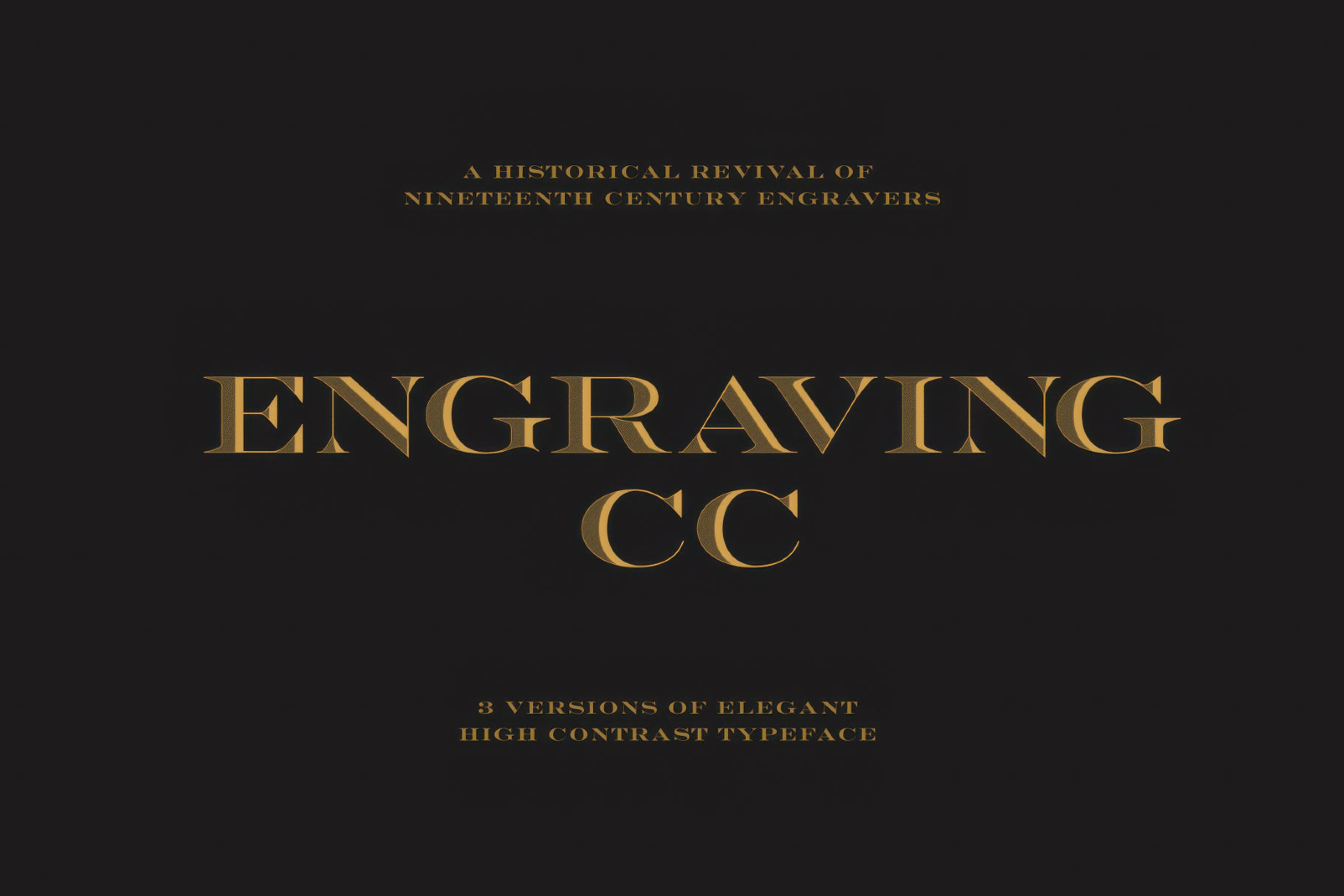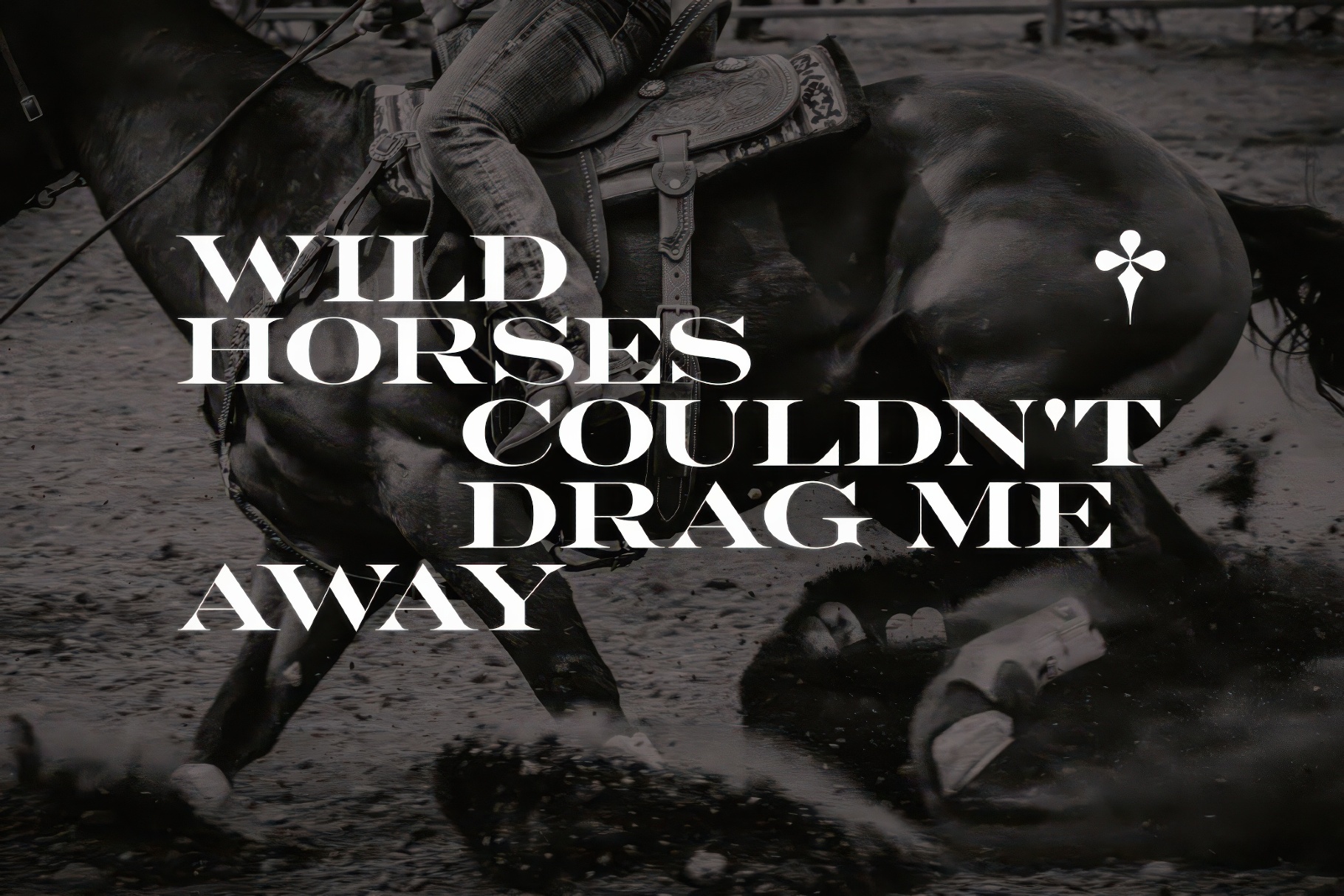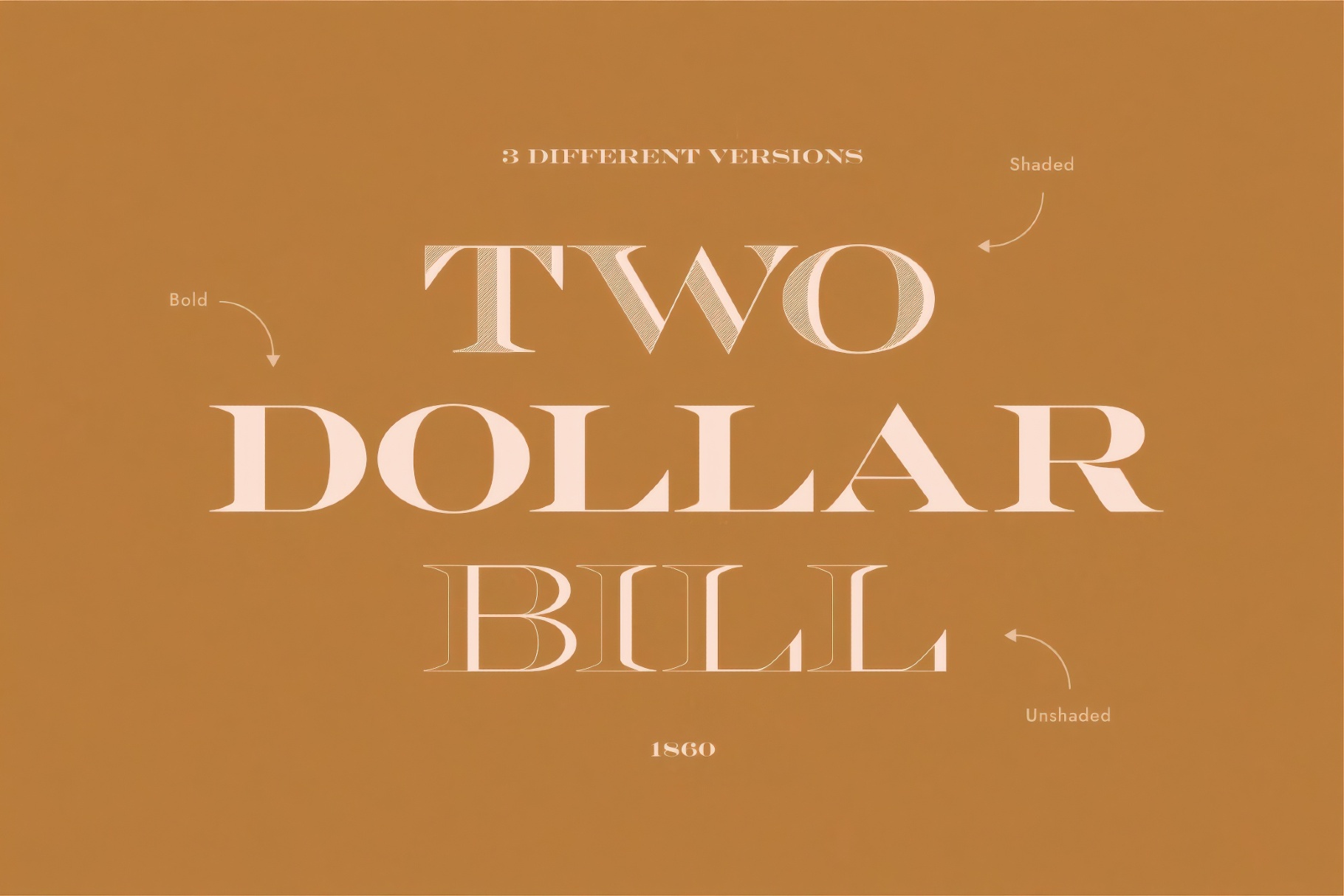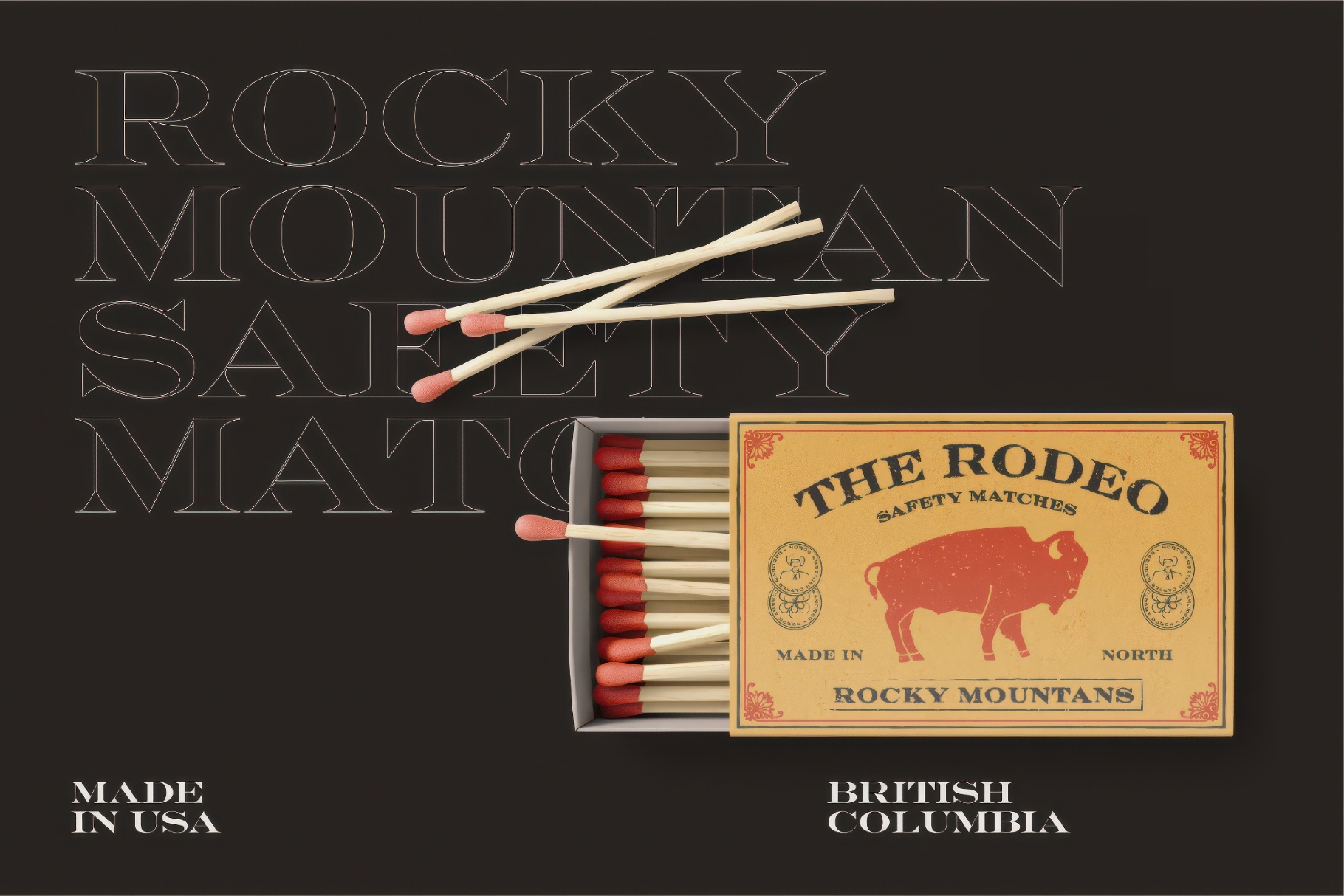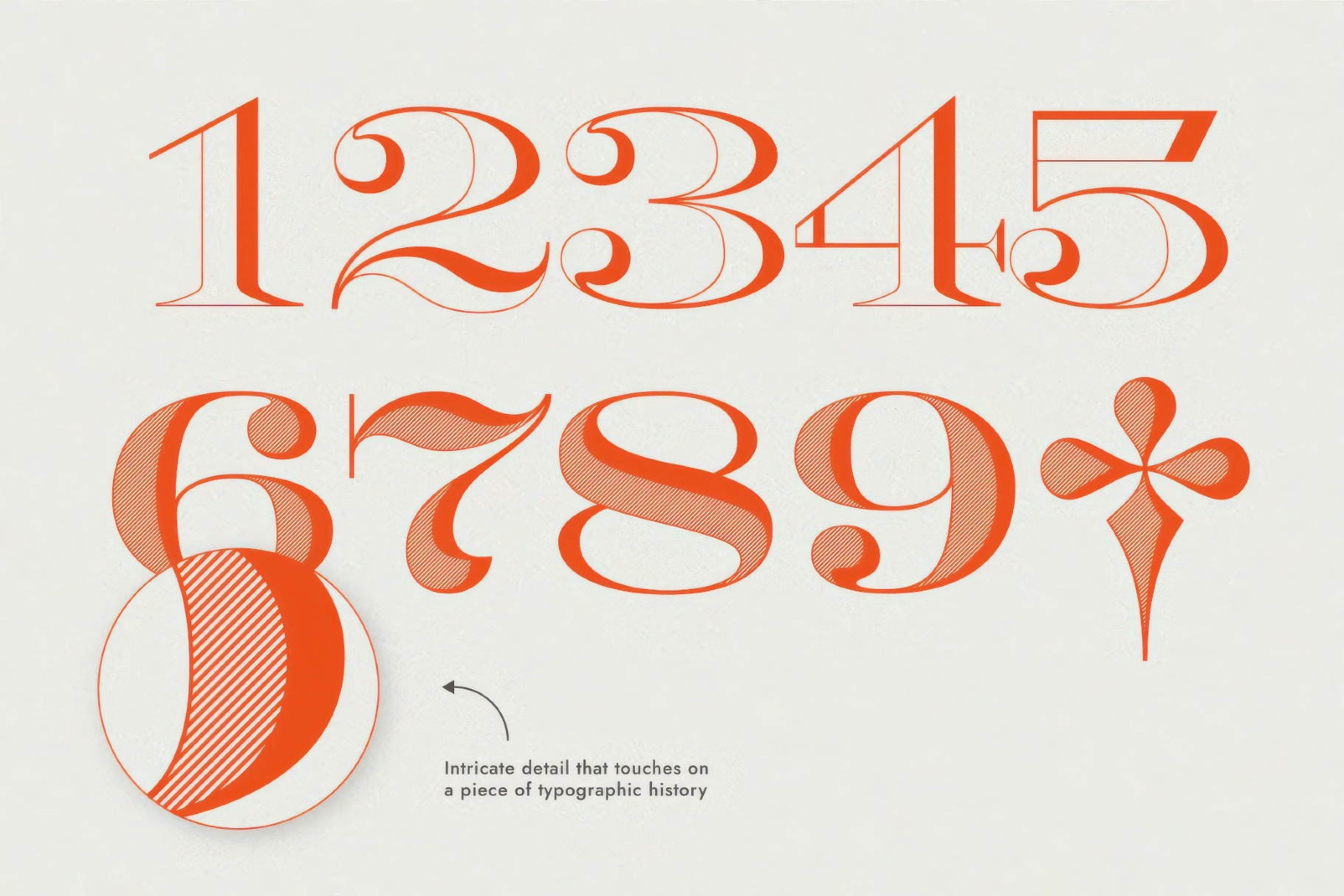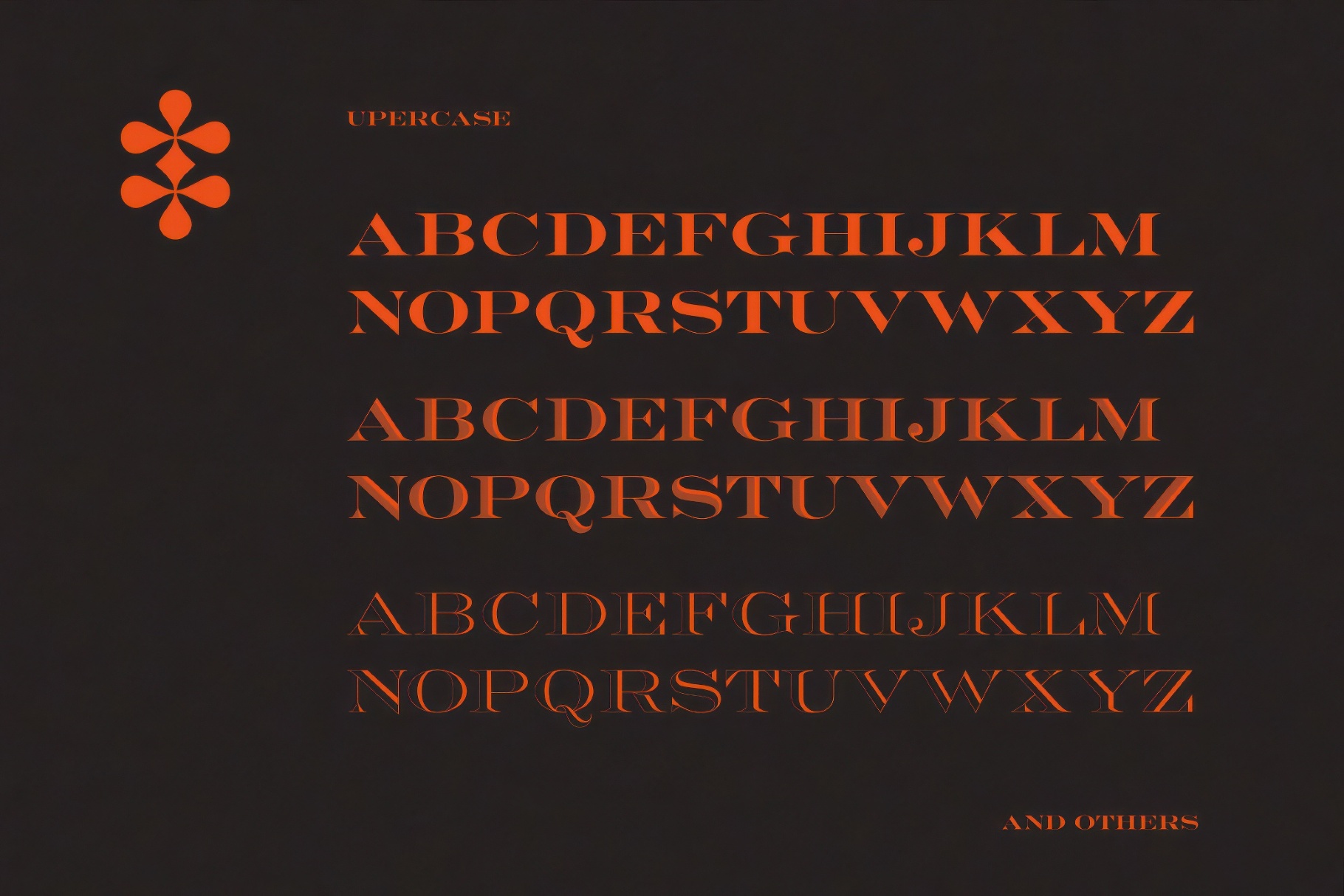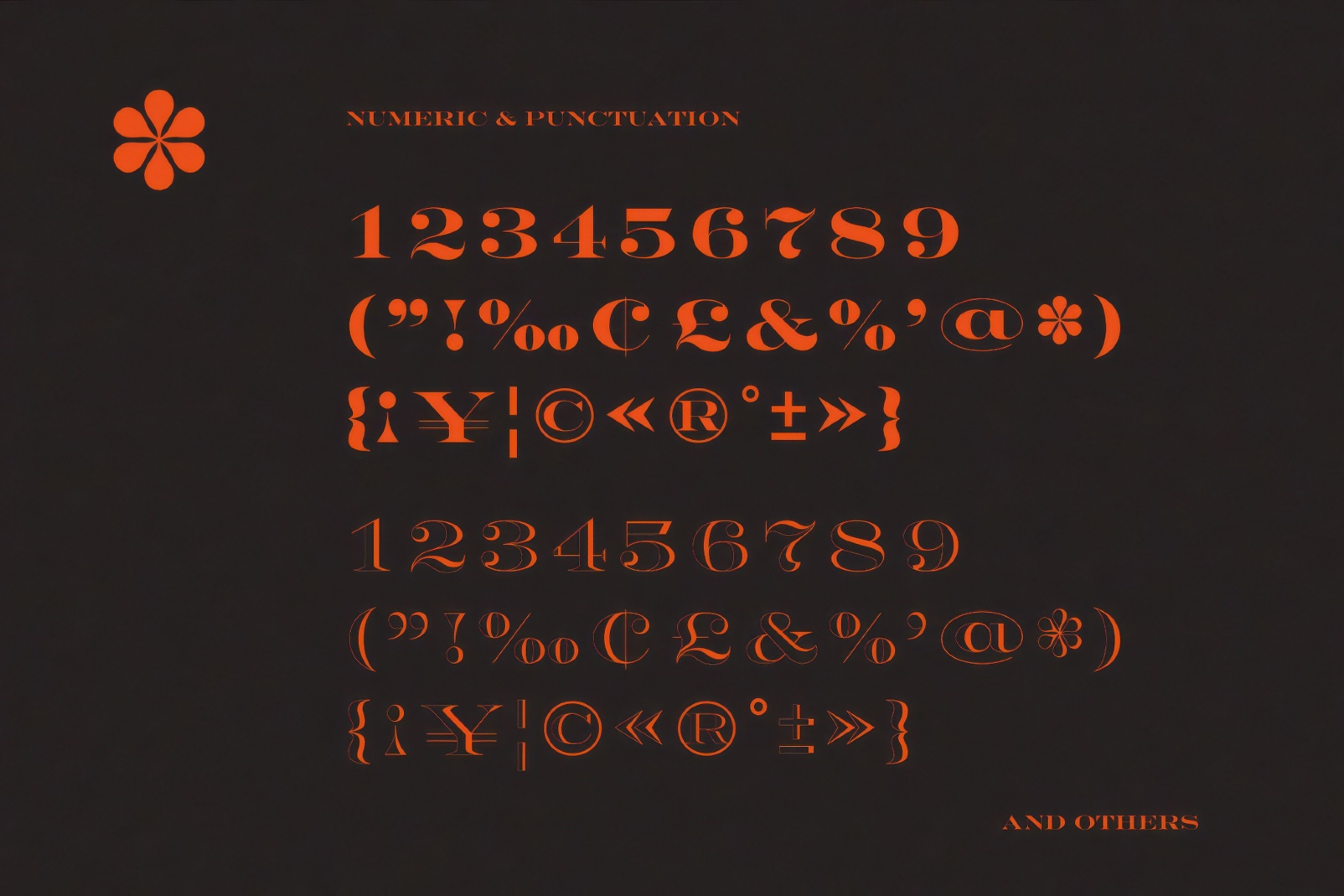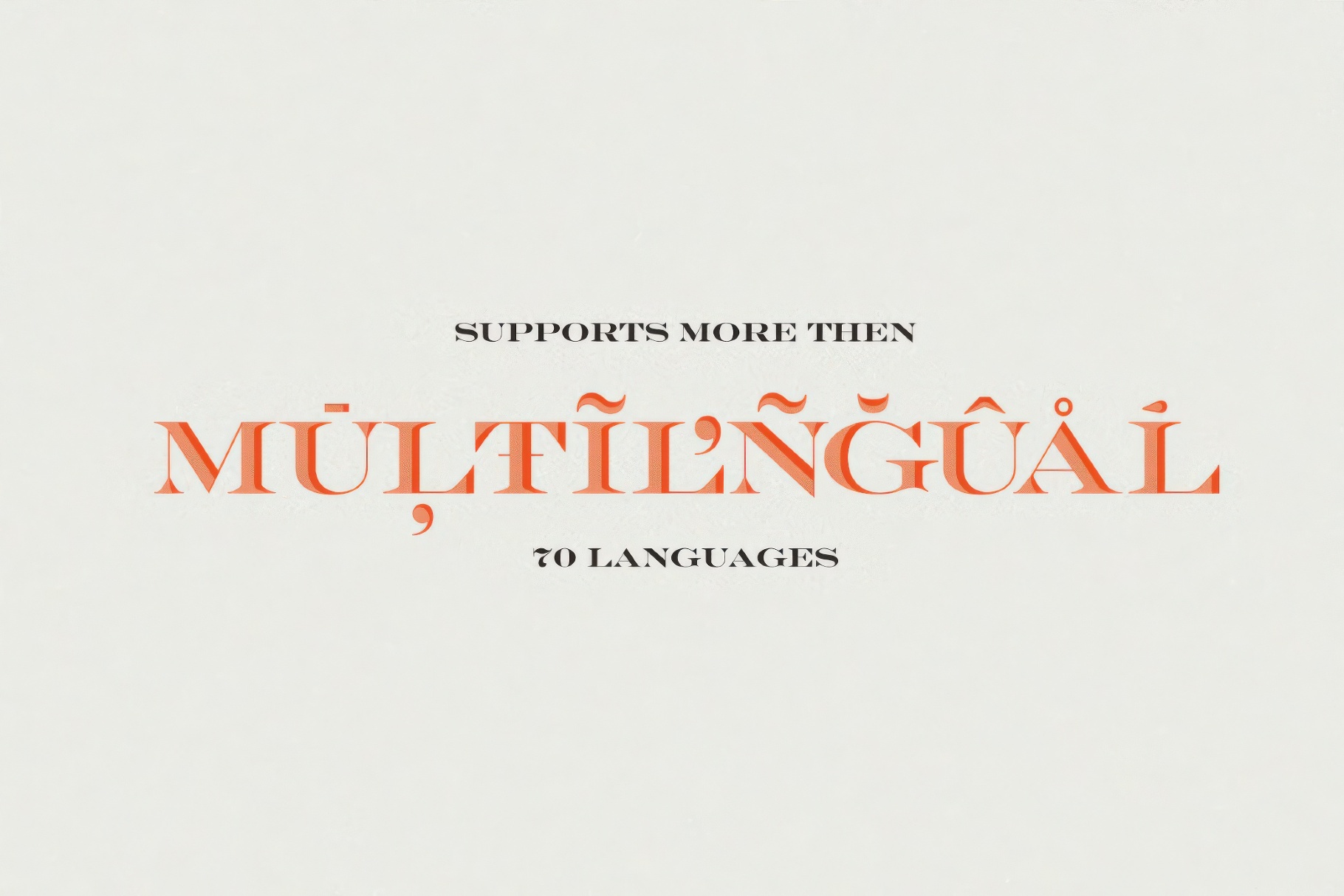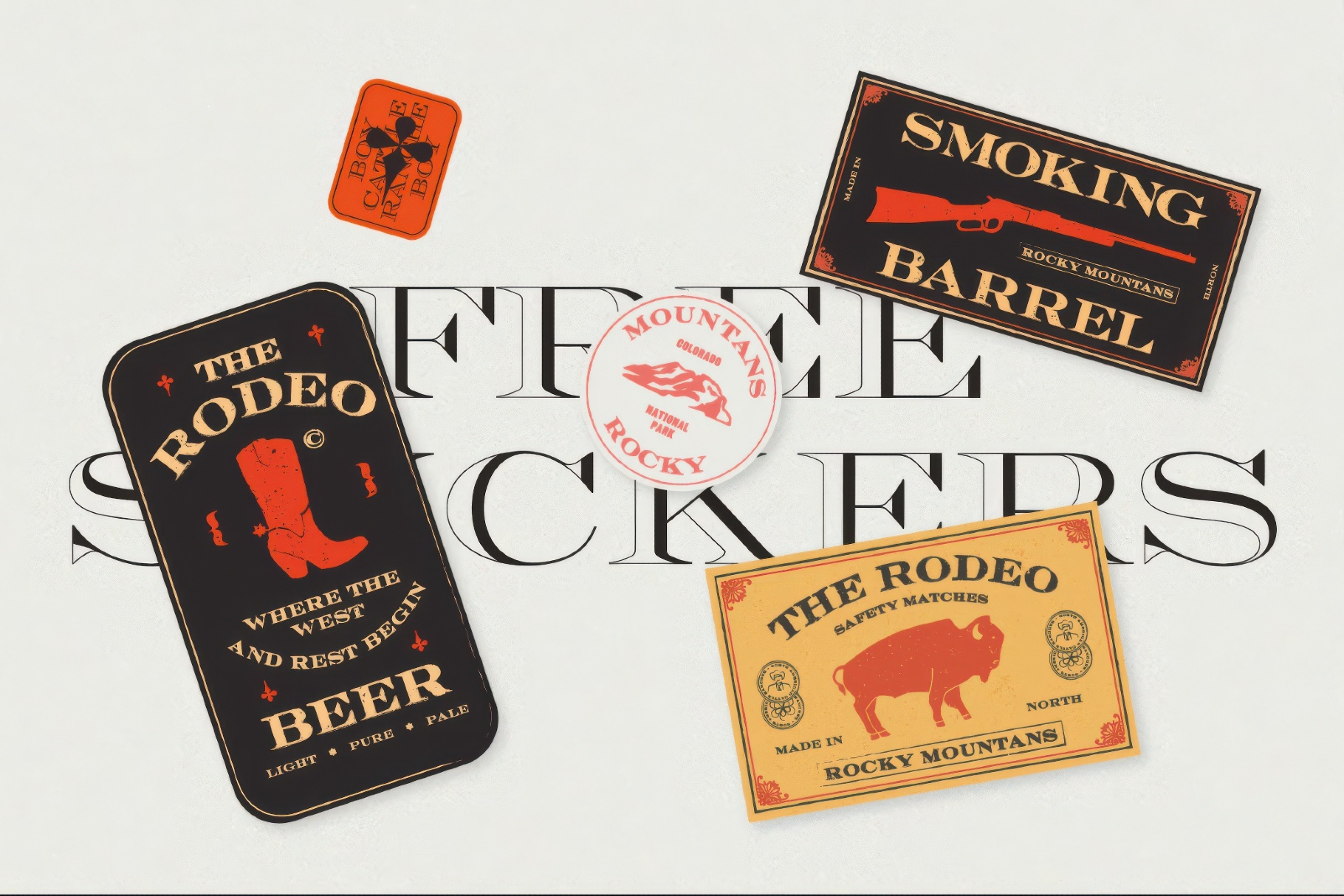
Engraving CC Font Family
CC
ShadedCC
UnshadedCC
Engraving CC draws from traditional vintage book typography and recalls banknotes and early industrial print culture through crisp serifs and formal proportions. It fits invitations, certificates, editorial mastheads, heritage branding, whisky and spirits packaging, cigar bands, book covers, signage, and academic materials. The restrained structure also works well for logos, commemorative designs, and long-form titles.
- Three styles: Bold, Shaded Bold, and Unshaded Bold.
- Uppercase letters, Numbers, punctuation, and symbols.
- Extended Latin support with international characters for a wide range of European languages.